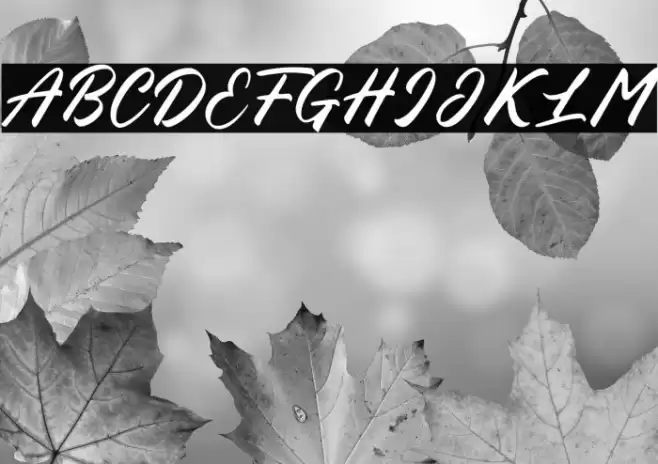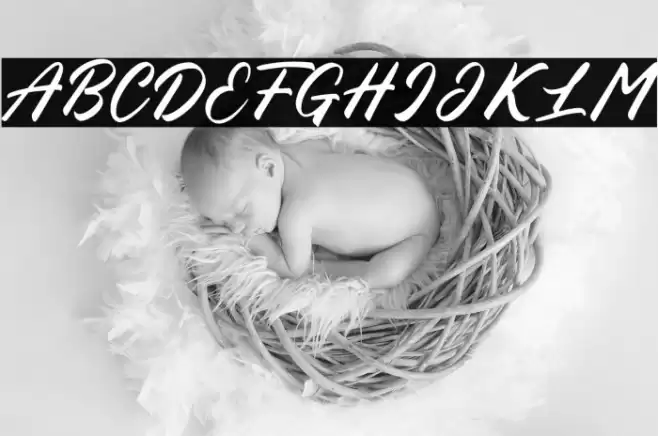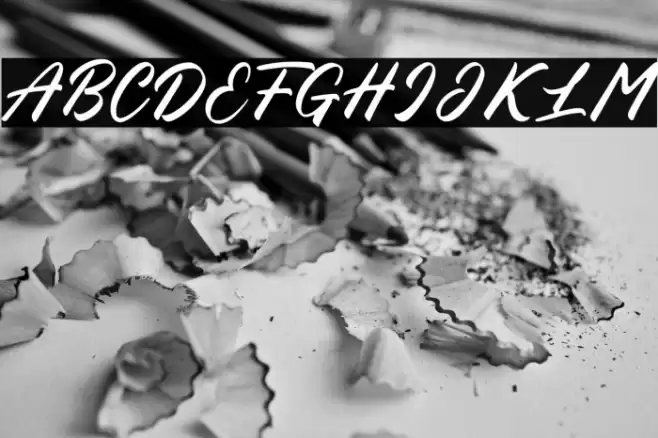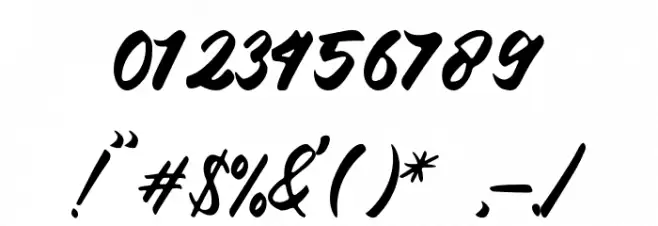
Blessed Friday Rounded Font
Blessed Friday Rounded Description
This font features a dynamic and flowing script style, characterized by its smooth, rounded edges and elegant curves. The uppercase letters exhibit a graceful, cursive form, while the lowercase letters maintain a consistent fluidity, enhancing readability. The numerals are designed with a similar flair, ensuring they complement the overall aesthetic. Special characters are crafted with attention to detail, maintaining the font's cohesive appearance. The strokes are moderately thick, providing a bold presence without overwhelming the design. This font exudes a sense of sophistication and creativity, making it suitable for various artistic applications.
A dynamic and flowing script font with smooth, rounded edges and elegant curves from Uncategorized fonts.
- Font: Blessed Friday Rounded
- Proposed Projects: Ideal for wedding invitations, greeting cards, branding projects, and elegant signage.
- Use Case: Logos, Headlines, Invitations